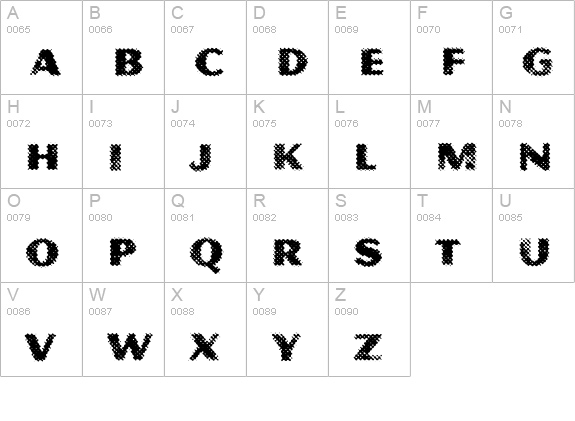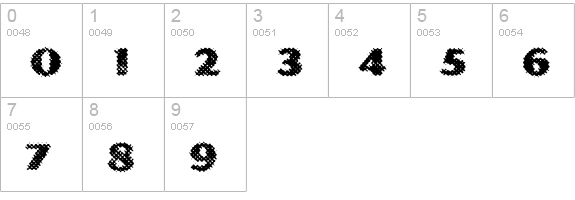
MagnesiumGrime Font Details
Introducing MagnesiumGrime, a captivating and versatile font that exudes an edgy yet elegant vibe. With its unique combination of sharp edges and flowing curves, this font captures attention and adds a touch of modernity to any design project. MagnesiumGrime is perfect for those seeking a font that effortlessly balances sophistication and urbanity. Its bold lines and intricate details make it ideal for headlines, logos, posters, and branding materials. Whether you are looking to create a striking advertisement or a sleek website, MagnesiumGrime will elevate your design to new heights. One of the most remarkable features of MagnesiumGrime is its versatility. This font can adapt to various styles, from grunge and industrial to futuristic and minimalistic. It effortlessly complements a wide range of themes and aesthetics, making it a go-to choice for designers across different industries. But what truly sets MagnesiumGrime apart is that it is freely available for download at FontsMarket.com. This means that anyone can access this captivating font without any cost, making it an excellent option for budget-conscious designers and enthusiasts. With MagnesiumGrime, you can unleash your creativity and bring your visions to life. Whether you are a professional designer seeking to impress clients or an individual looking to add a touch of uniqueness to personal projects, this font is a must-have in your collection. Download MagnesiumGrime from FontsMarket.com today and experience the freedom to create captivating designs with this exceptional font. Let MagnesiumGrime become your go-to choice for all your typographic needs, and watch as your creative endeavors flourish with its distinctive and mesmerizing style.